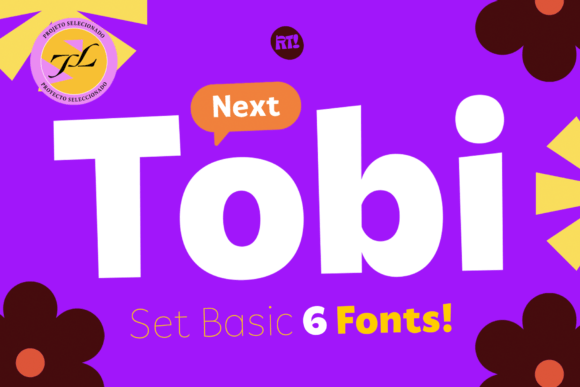
Tobi Next Font
Unleash the captivating power of expression with Tobi Next Font, the ultimate display font crafted for modern visionaries. Designed by the esteemed Rodrigo Typo, this font is a masterpiece of creativity and innovation, capturing the essence of boldness and confidence. Each letterform is meticulously rendered with clean lines and a contemporary flair, exuding an aura of professionalism and sophistication that sets your designs apart.
Step into a world of endless possibilities with Tobi Next Font, the perfect choice for headlines that demand attention, logos that leave a lasting impression, and branding materials that speak volumes about your brand's identity. Its sleek and impactful design commands attention, captivating your audience with its strong and confident presence.
Immerse yourself in the world of typography and let Tobi Next Font ignite your creativity. Its bold and modern style adds a touch of elegance to any project, whether you're designing websites, creating marketing campaigns, or expressing your artistic vision. Discover the true essence of visual communication with Tobi Next Font, the font that transforms your words into works of art.